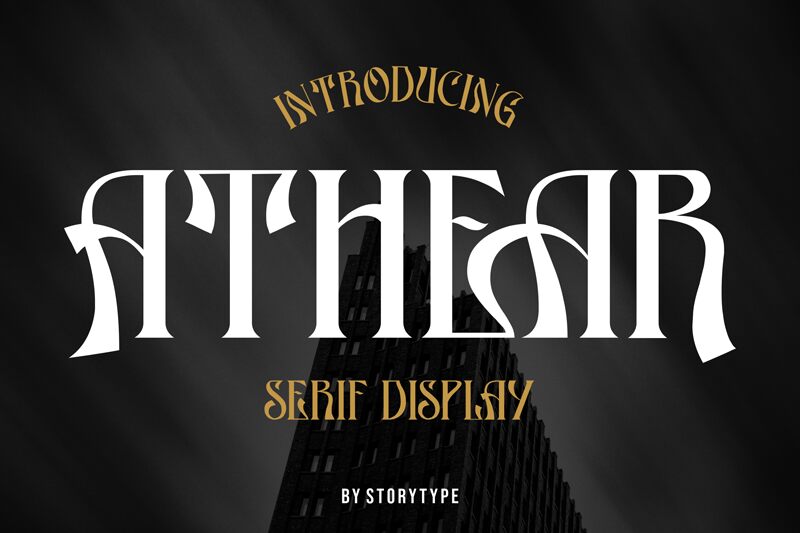
ATHEAR
ATHEAR, a captivating creation by Storytype Studio, is a display font that exudes retro charm with its enchanting serif style. Its condensed width adds a touch of sophistication and elegance to any project it graces. Ideal for vintage-inspired designs, ATHEAR lends itself seamlessly to diverse projects such as logo designs for fashion boutiques, album covers for indie bands looking to evoke nostalgia, or enticing beverage packaging that aims to transport customers back in time. Let this alluring semi-bold typeface elevate your creative endeavors and create an unforgettable visual experience.